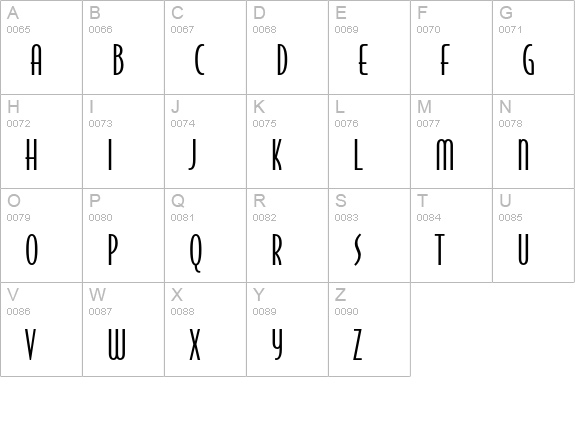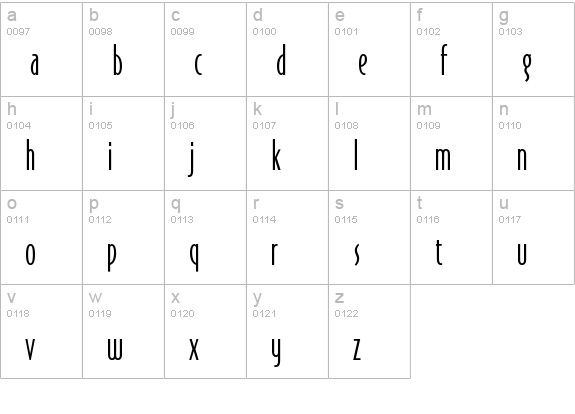
BodegaSansOldstyle Font Details
BodegaSansOldstyle is a timeless and versatile font that exudes a classic elegance with a modern twist. Its refined design features clean lines and subtly rounded edges, making it a perfect choice for a wide range of design projects. Whether you're creating elegant invitations, stylish branding materials, or sophisticated editorial layouts, BodegaSansOldstyle adds a touch of sophistication to any design. This font family includes a variety of weights and styles, allowing you to mix and match for dynamic and engaging typography. From bold headlines to delicate body text, BodegaSansOldstyle offers a cohesive and harmonious look across all your design elements. Best of all, BodegaSansOldstyle is completely free to download at FontsMarket.com, making it accessible to designers of all levels. Don't miss out on adding this versatile and stylish font to your collection today!